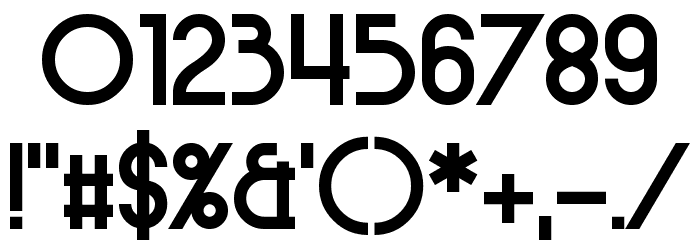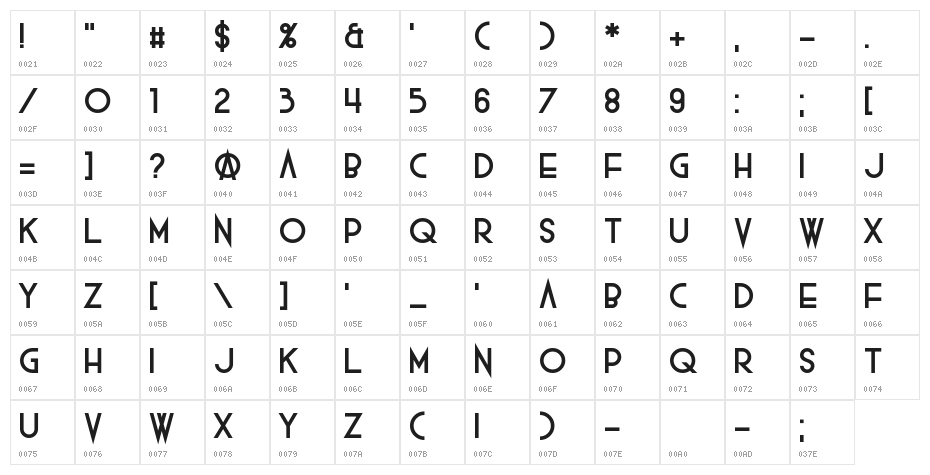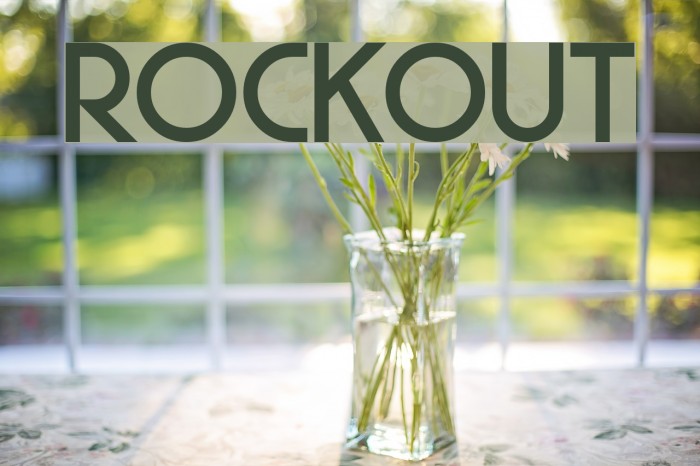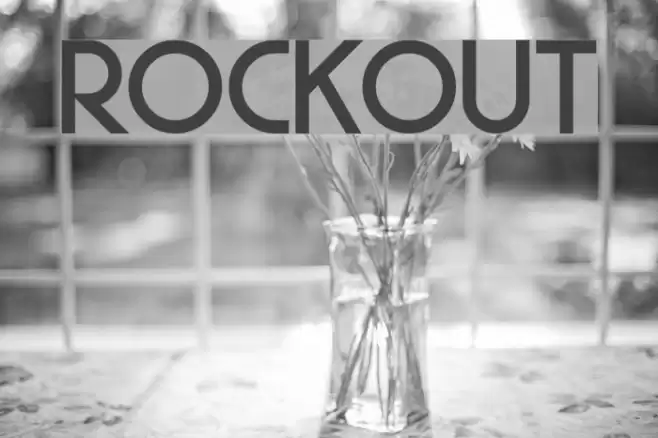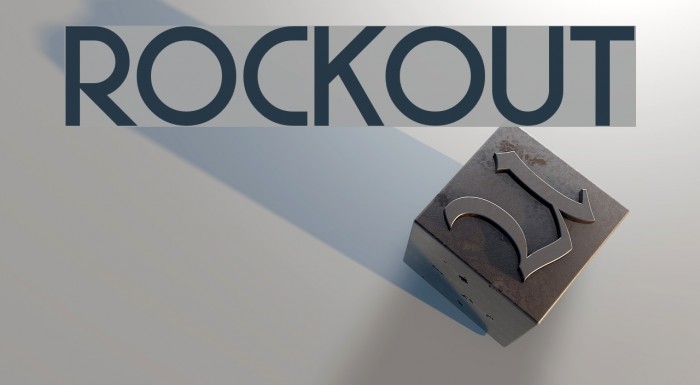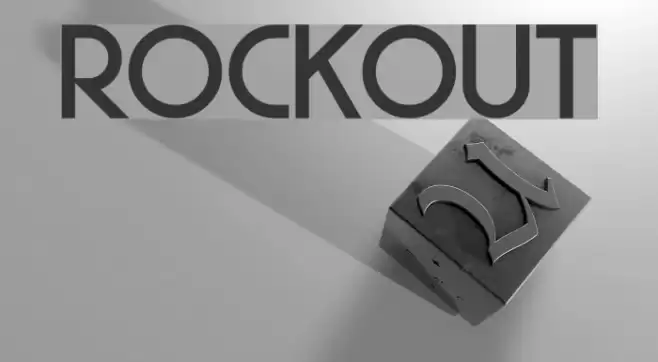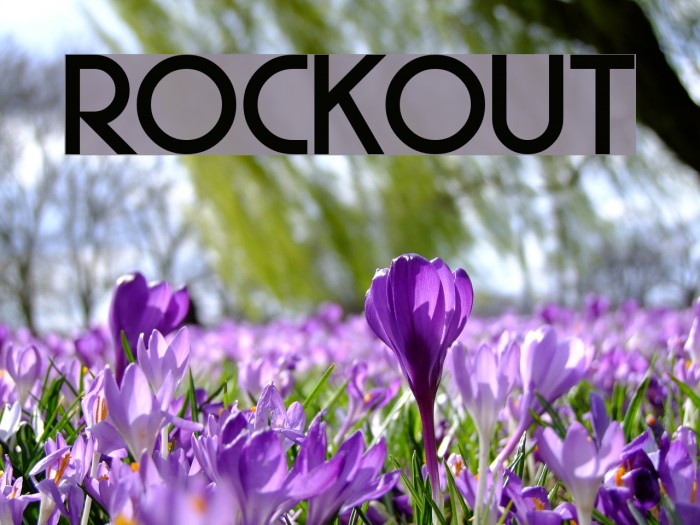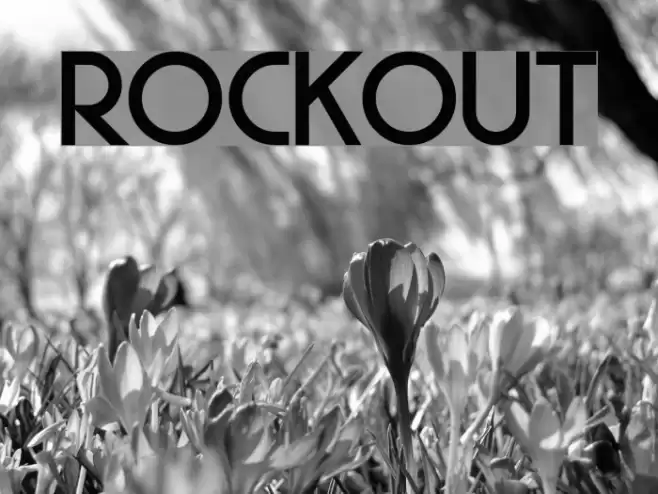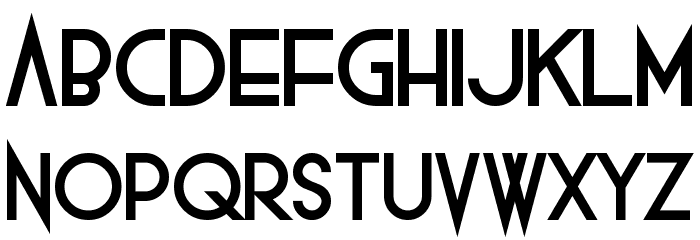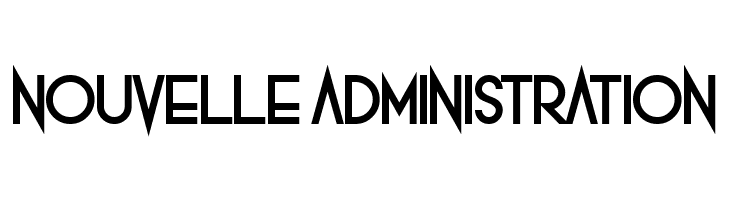
Rockout Font
Rockout Description
This font features a bold and geometric design with sharp angles and clean lines, creating a striking and modern appearance. The uppercase letters are particularly distinctive, with a unique angular style that adds a sense of dynamism and energy. The numbers and special characters maintain this bold aesthetic, ensuring consistency across all glyphs. The overall look is both futuristic and edgy, making it ideal for projects that require a strong visual impact.